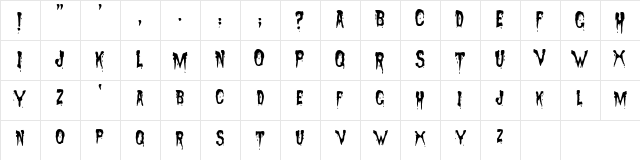
Sanguinary Regular
Design Context for Sanguinary Typeface
Sanguinary is a composed and adaptable typeface that performs quietly and consistently across a wide range of design contexts.